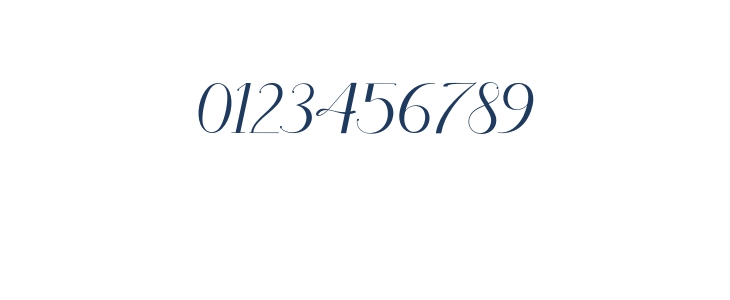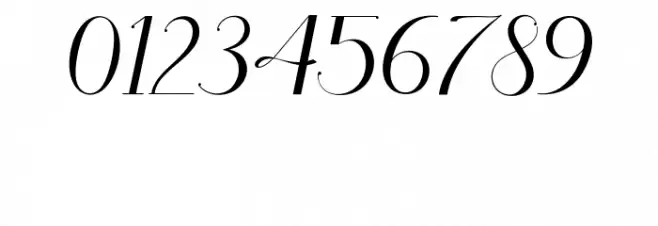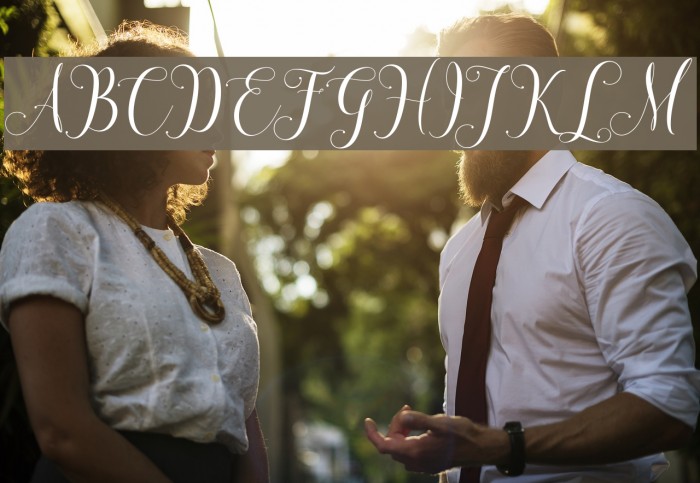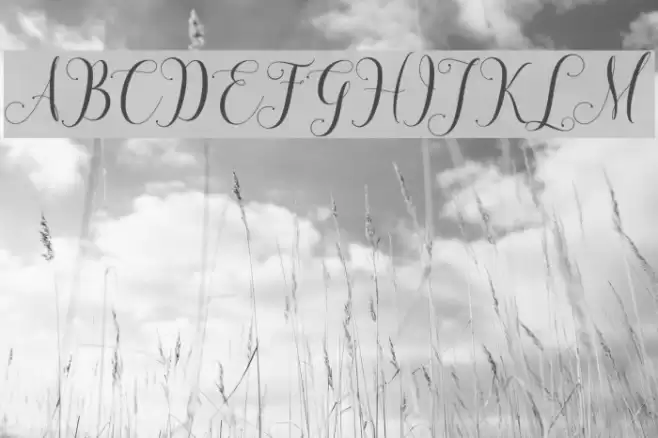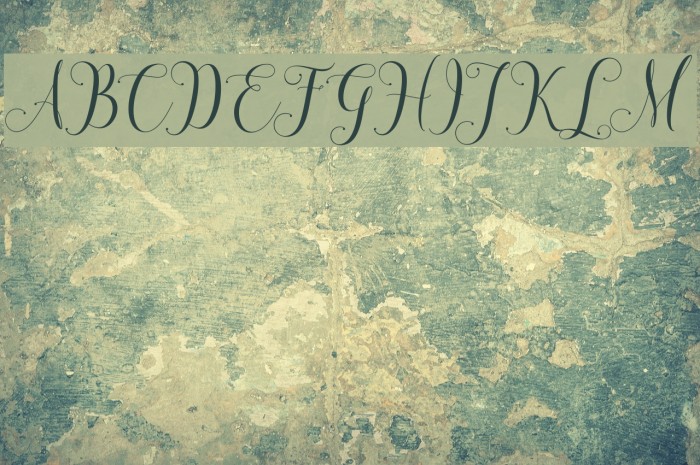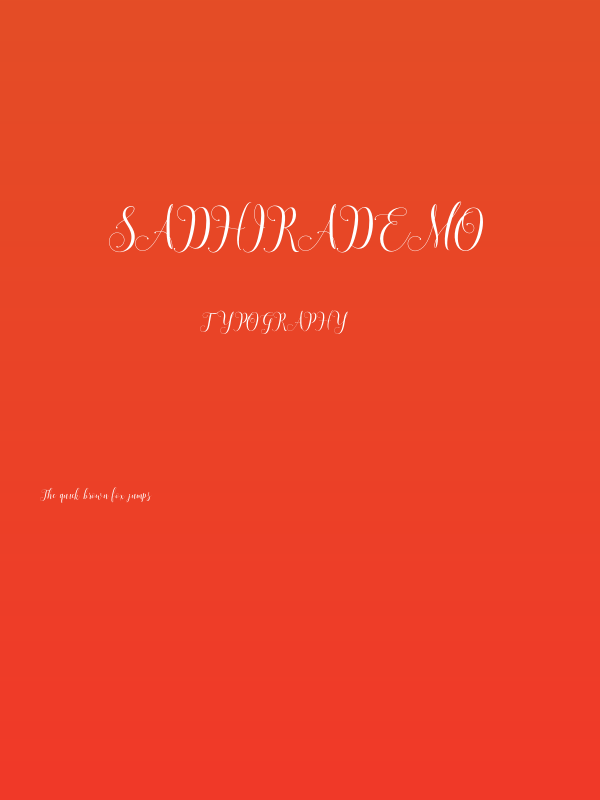
SadhiraDemo Font
SadhiraDemo Description
This elegant script font features a flowing, cursive style with intricate swashes and flourishes. The uppercase letters are particularly ornate, with extended loops and curves that give a sense of sophistication and grace. The lowercase letters maintain a smooth, connected appearance, enhancing readability while retaining an artistic flair. The numerals are stylish yet clear, complementing the overall aesthetic. This font is perfect for projects that require a touch of elegance and refinement, such as wedding invitations, luxury branding, or high-end product packaging.
| Proposed Projects | Ideal for wedding invitations, luxury branding, and high-end product packaging. |